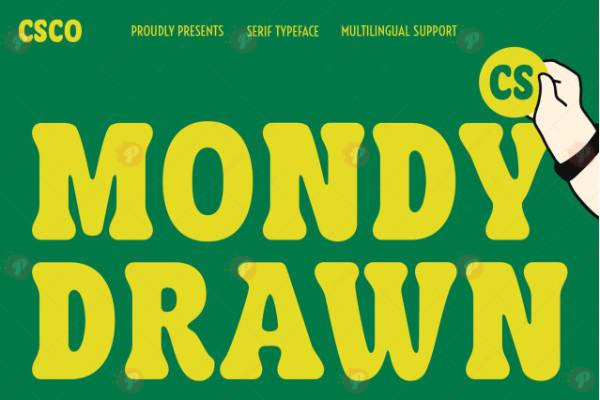
The CS Mondy Drawn Font is a hand-drawn and creative typeface, perfect for posters, social media graphics, logos, branding, greeting cards, and display typography. Its organic, playful style adds personality and a handcrafted charm to your projects.
Ideal for digital and print designs, CS Mondy Drawn brings a unique, artistic touch, making your work visually distinctive and appealing.
Style: Hand-Drawn / Creative / Display Typeface
Perfect for: Posters, Social Media Graphics, Logos, Branding, Greeting Cards & Display Typography
Add a handcrafted and artistic feel to your designs with the CS Mondy Drawn Font.